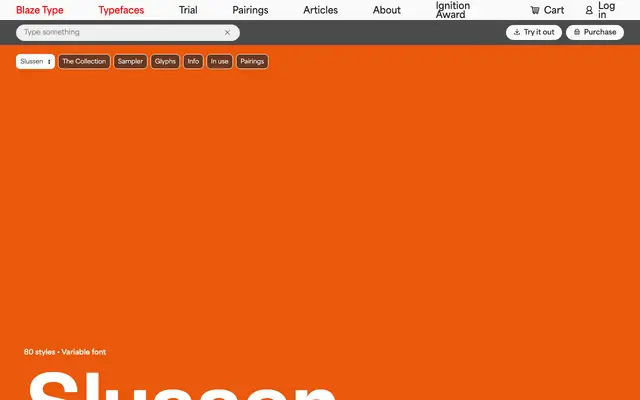
Slussen
An 80-style grotesque sans spanning five widths from Compressed to Expanded, each carrying eight weights with matching italics and variable font support.
Five width families run from Compressed through Condensed, Normal, Extended and Expanded, each stepping through eight weights from Thin to Black with full italic coverage. The variable font format ties the entire collection together into a single file for flexible use across print and screen. A workhorse grotesque built for systems that need consistent typographic range without switching families.
A large-family grotesque sans spanning five width variants from Compressed to Expanded, each with a full weight range and italics, consistent with the neo-grotesque tradition of systematic width and weight variation.